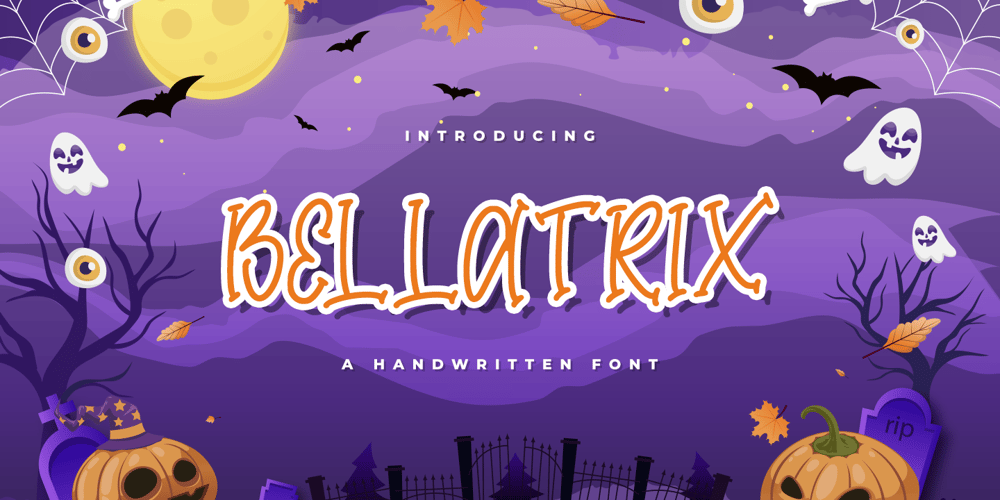
Bellatrix Font Family was designed by Hayinah and published by Rockboys Studio. Bellatrix contains 1 styles and family package options. Bellatrix is a cool and spooky display font. It is perfectly suitable for any Halloween-related project or crafty idea! The only limit is your imagination.